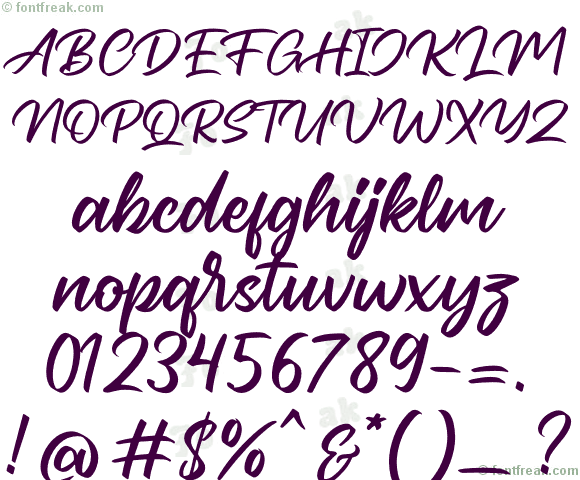
Asteratty
Asteratty — Character Map
About Asteratty
Asteratty, created by Abas Creative in 2020, is a stunning handwritten font that captures the essence of personal touch and creativity. This freeware font is characterized by its elegant, flowing strokes that convey warmth and approachability. The script style features a moderate stroke weight with playful contrasts, making it suitable for various design applications. The graceful curves and flourishes of Asteratty add a whimsical flair, while its well-balanced spacing ensures readability, even at smaller sizes.
This versatile font is perfect for a variety of use cases. It shines in wedding invitations, where its romantic and personal feel enhances the overall aesthetic of the event. Additionally, Asteratty is an excellent choice for greeting cards, allowing designers to create heartfelt messages that resonate with recipients. Small business owners will find it particularly useful for branding elements, such as logos and product packaging, as it helps convey a friendly and inviting brand image. Furthermore, this font can elevate restaurant menus, giving them a unique character that draws customers in.
Targeted towards graphic designers, small business owners, and content creators, Asteratty is an essential addition to any creative toolkit. Its unique style offers a refreshing alternative to more conventional fonts, allowing users to stand out in a crowded marketplace.
In conclusion, Asteratty font free download is a gem for anyone seeking to infuse their projects with personality and charm. Its combination of elegance and playfulness makes it an ideal choice for both formal and casual applications. With Asteratty, your designs will not only communicate messages but also evoke emotions, making every project a memorable experience.